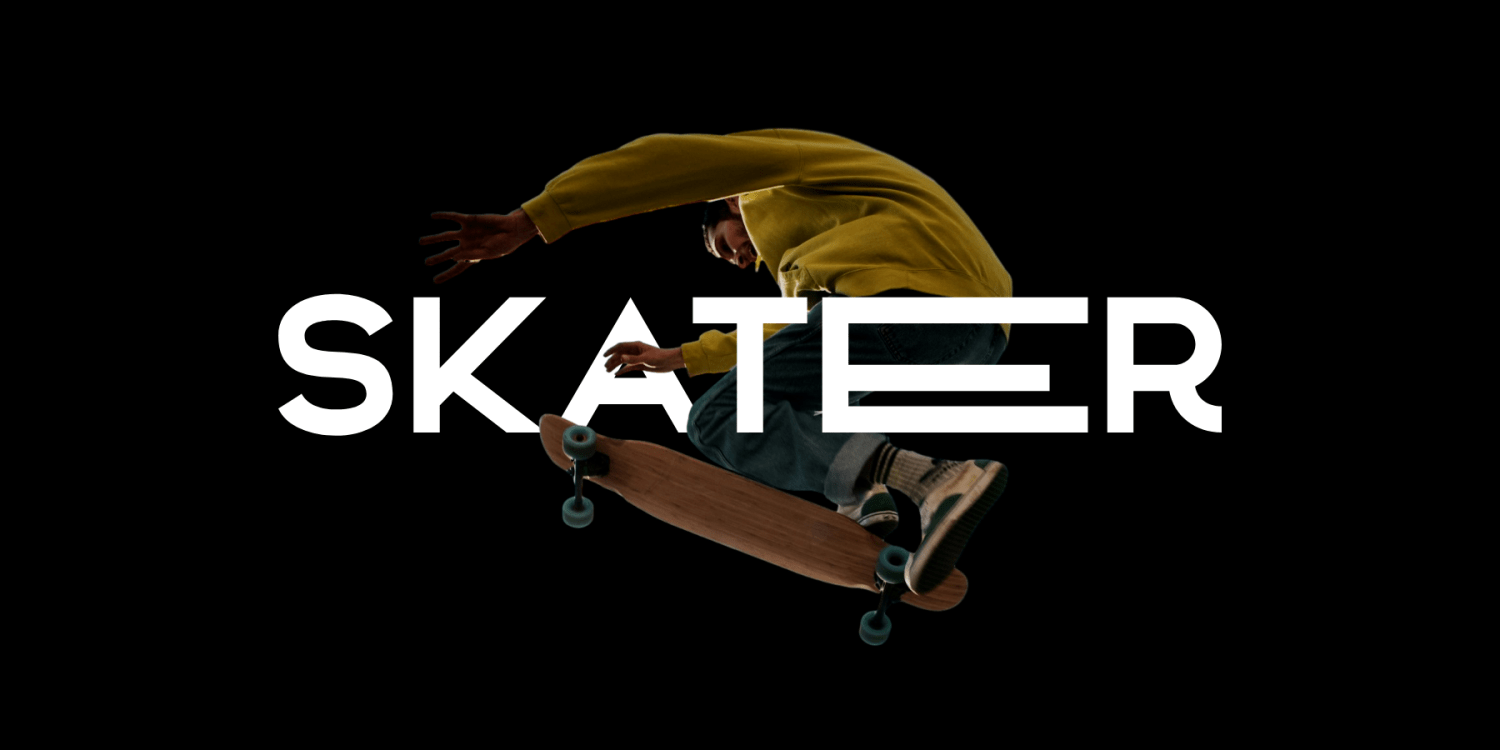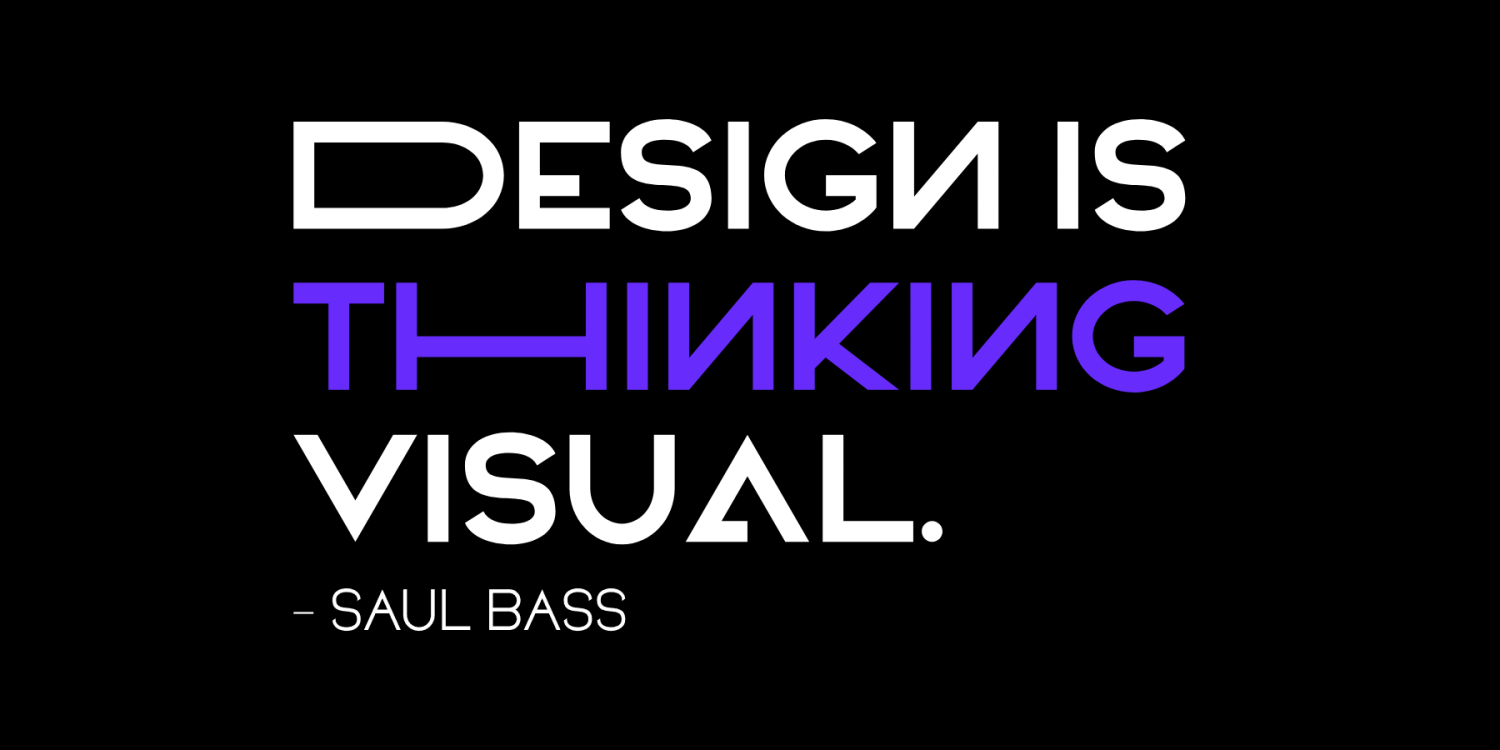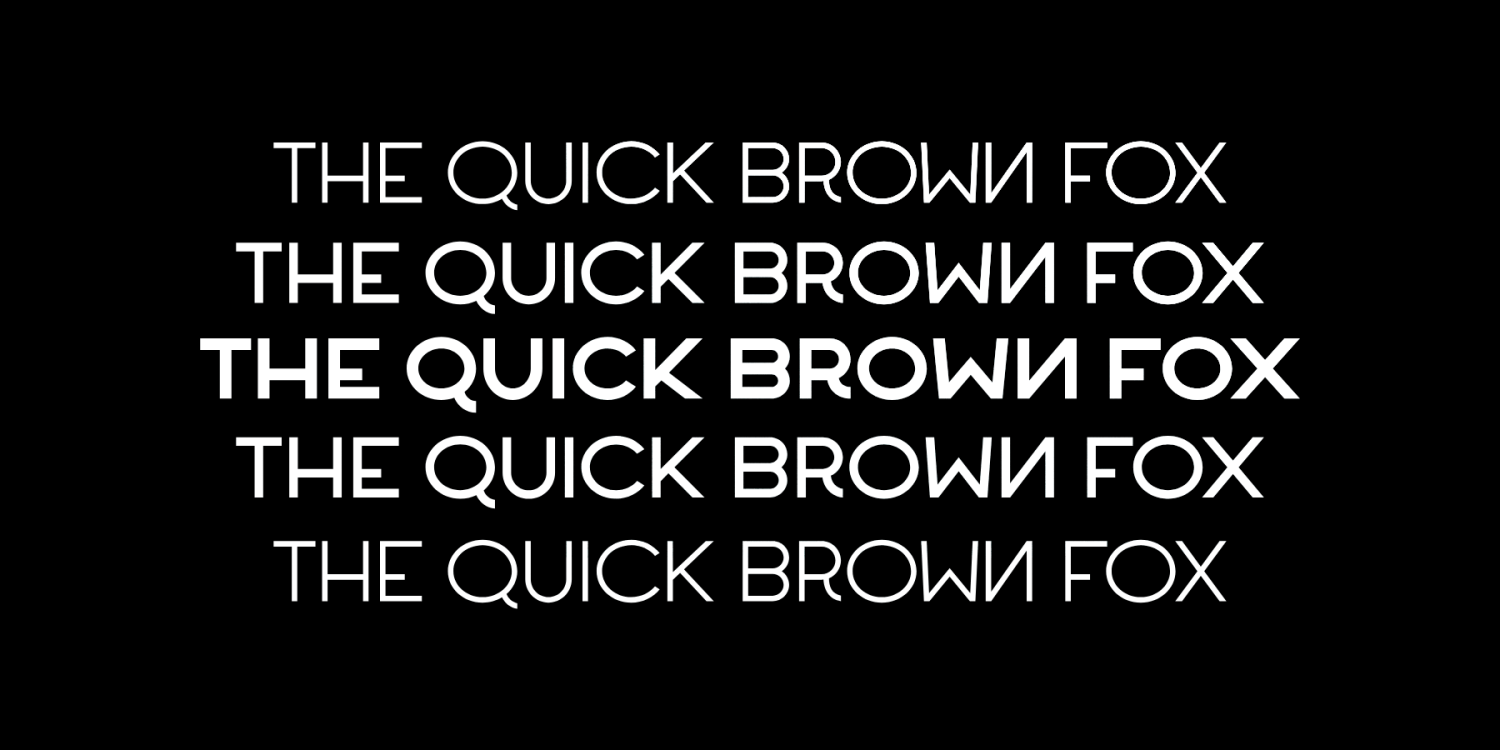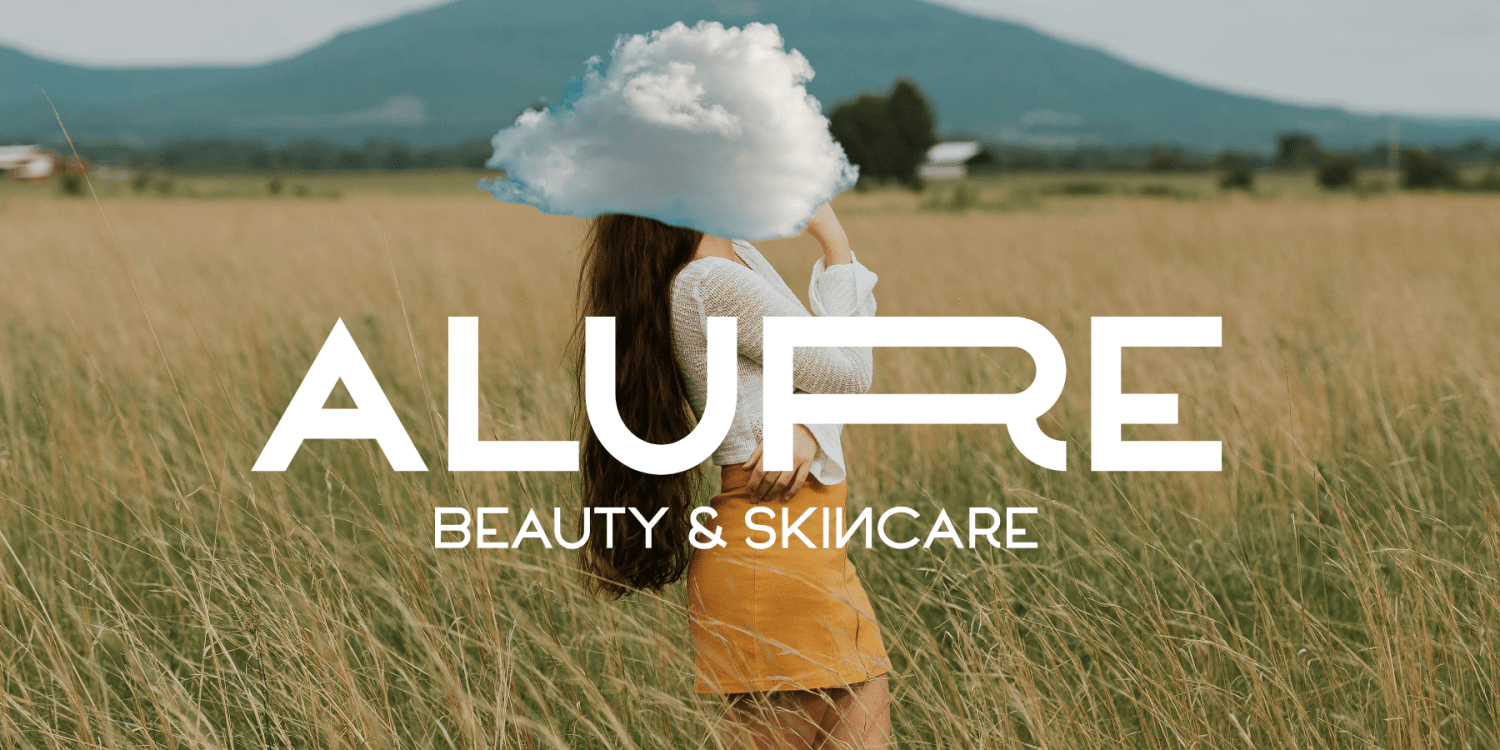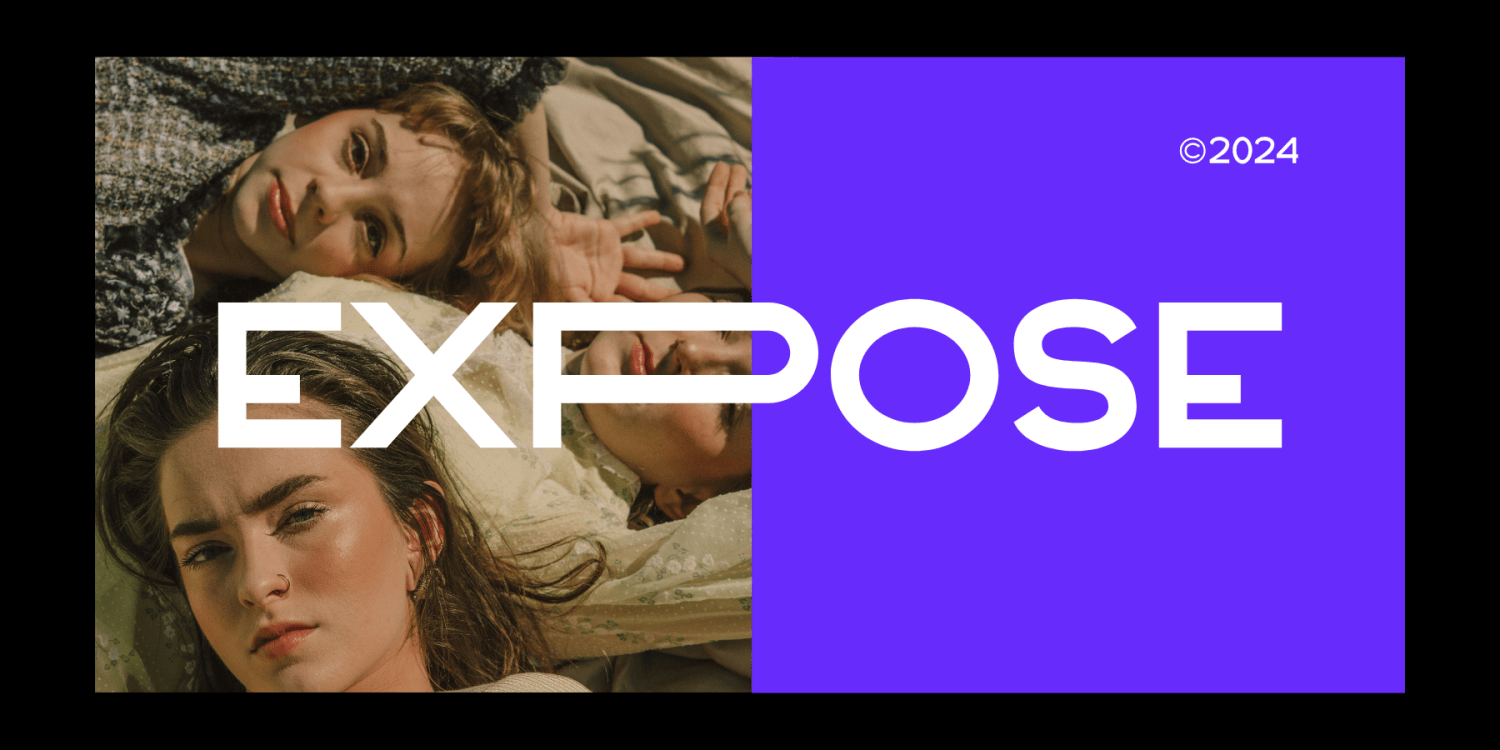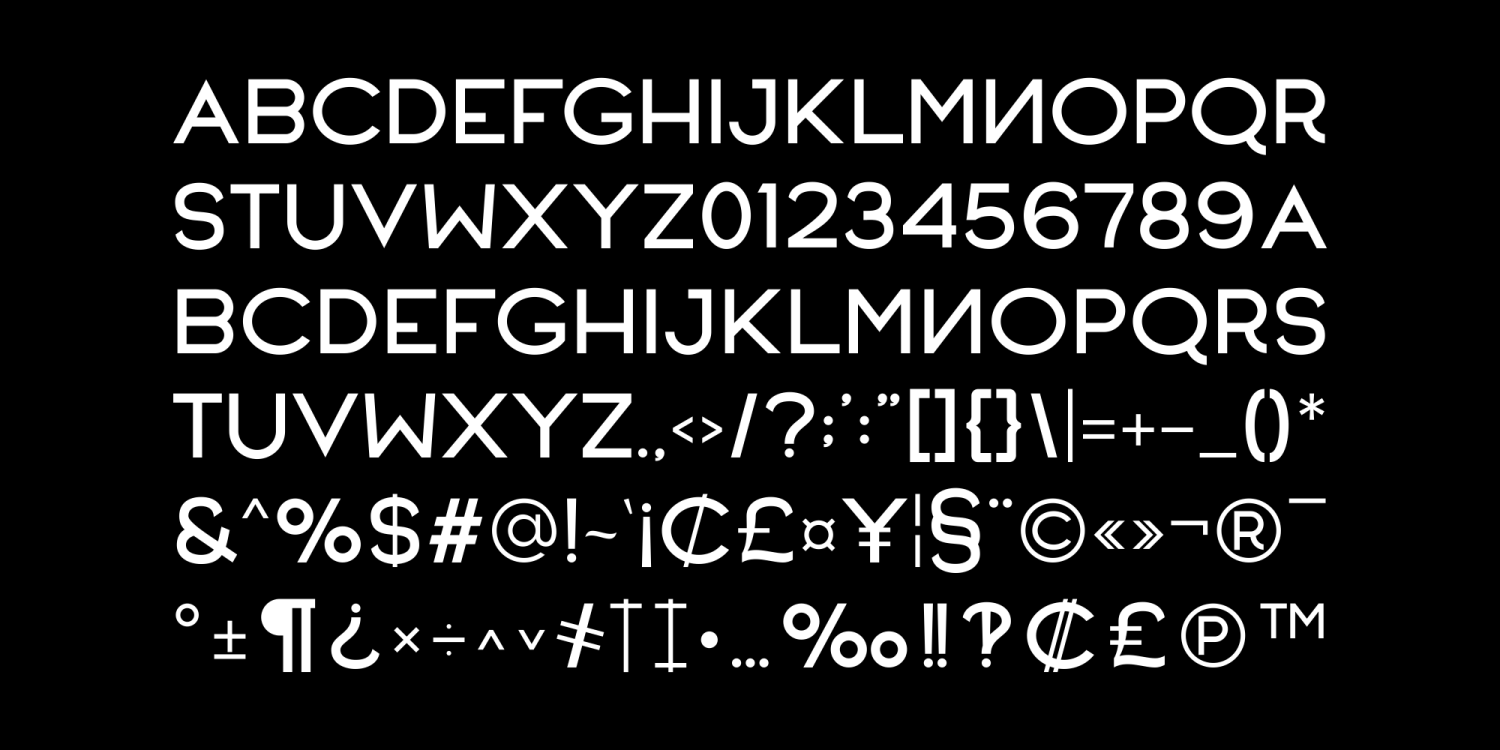
Biden
Font Family by Marvadesign
Presenting the Biden Biden Font, an exceptional sans serif typeface that brilliantly merges solid aspects of the iconic Futura font with a distinct dash of elegance. Created by the talented Marvadesign, this font presents a new twist to typography. The three unique styles offered - Light, Regular, and Bold, further enhance its versatility. Biden Biden Font's Light style, influenced by the Modern Family typography, delivers a serene and refined touch. It is indeed a perfect tool for graphic designers and marketing firms seeking to create impactful designs.